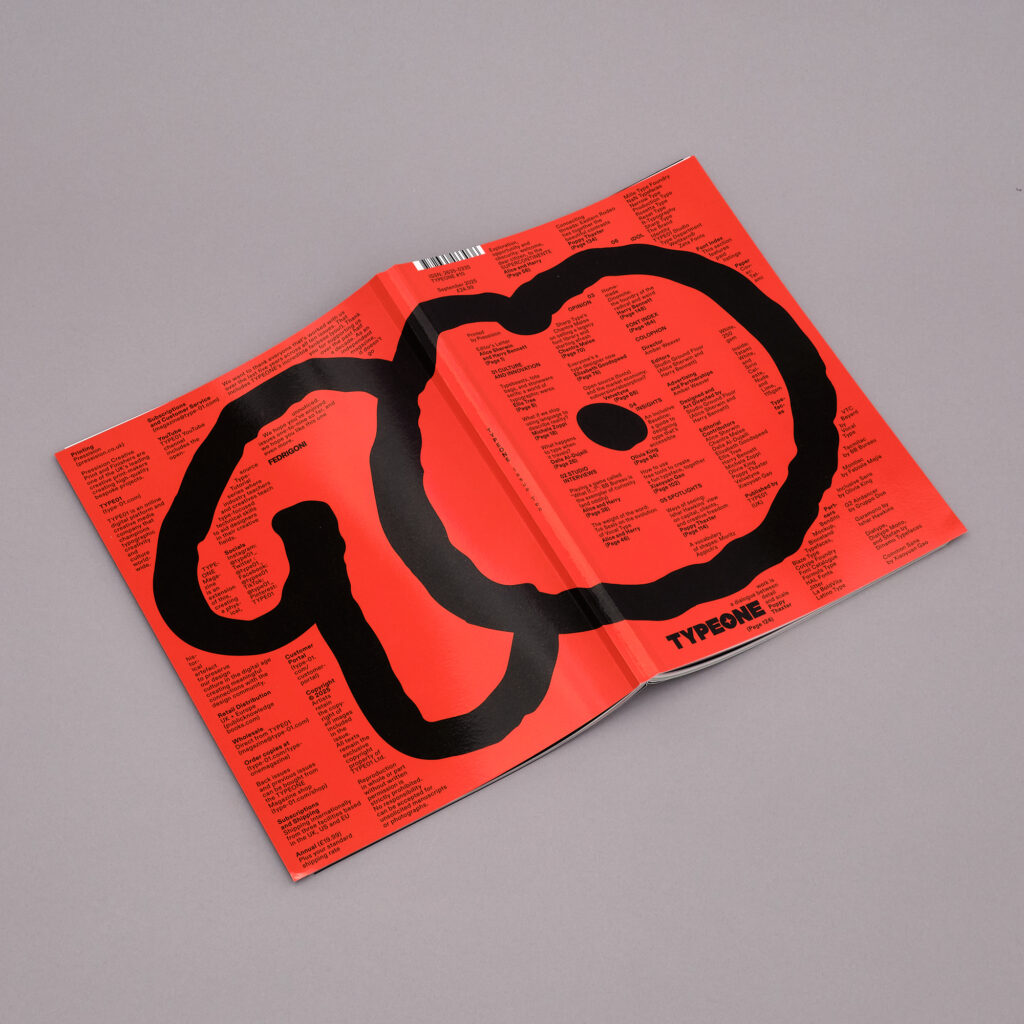
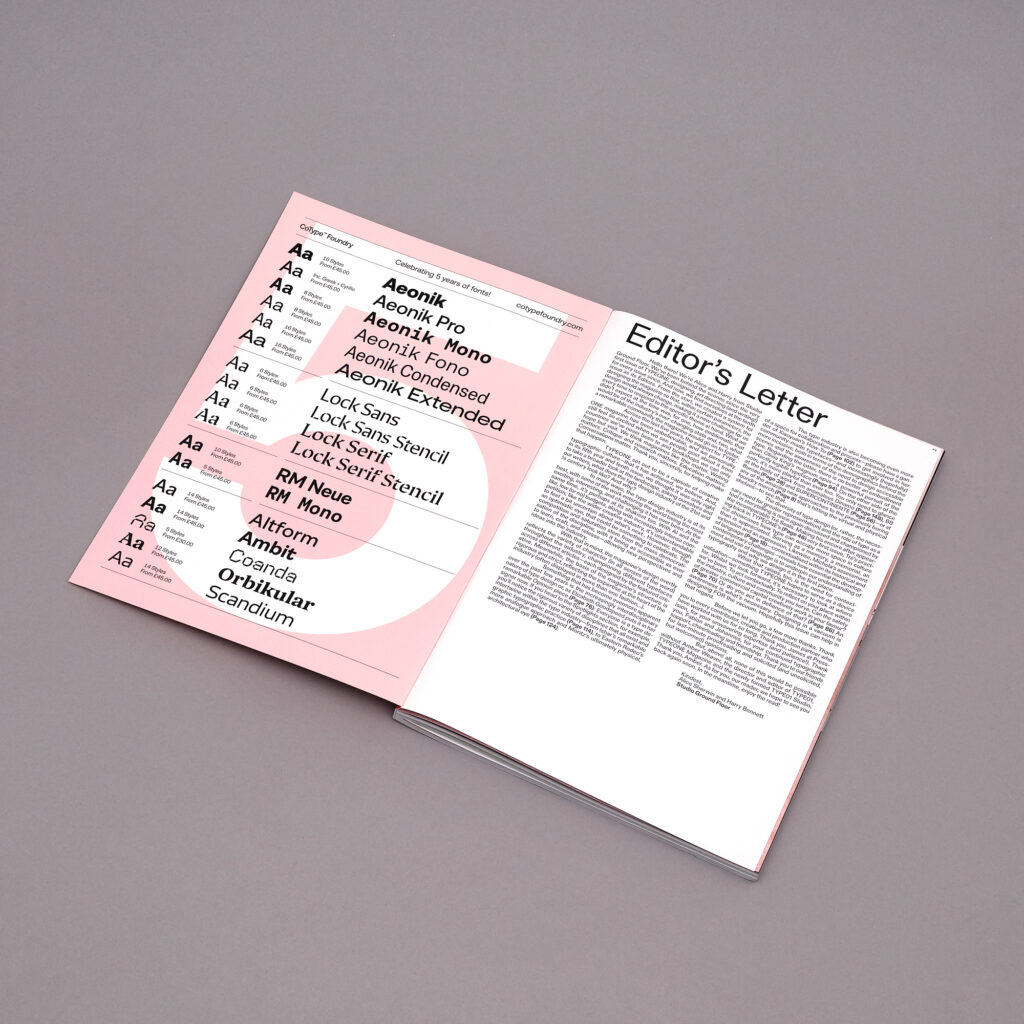
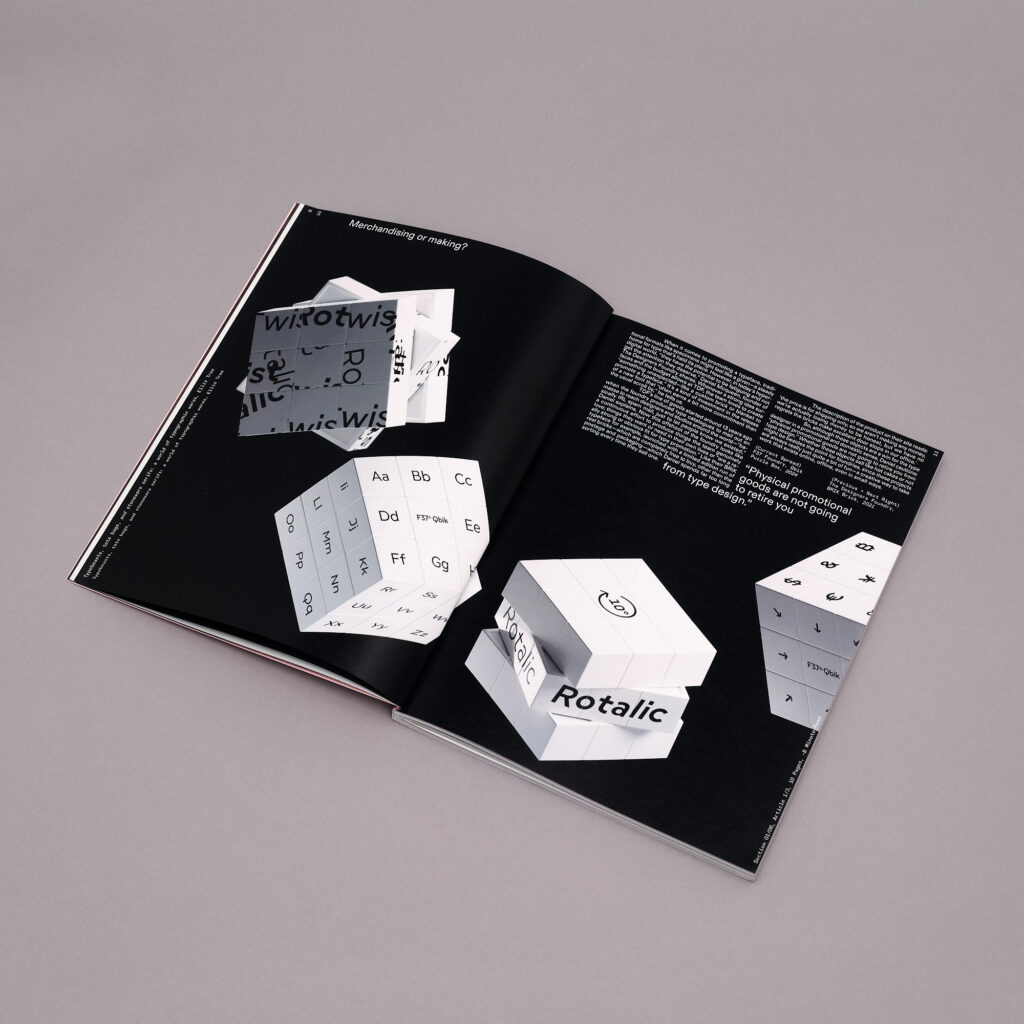
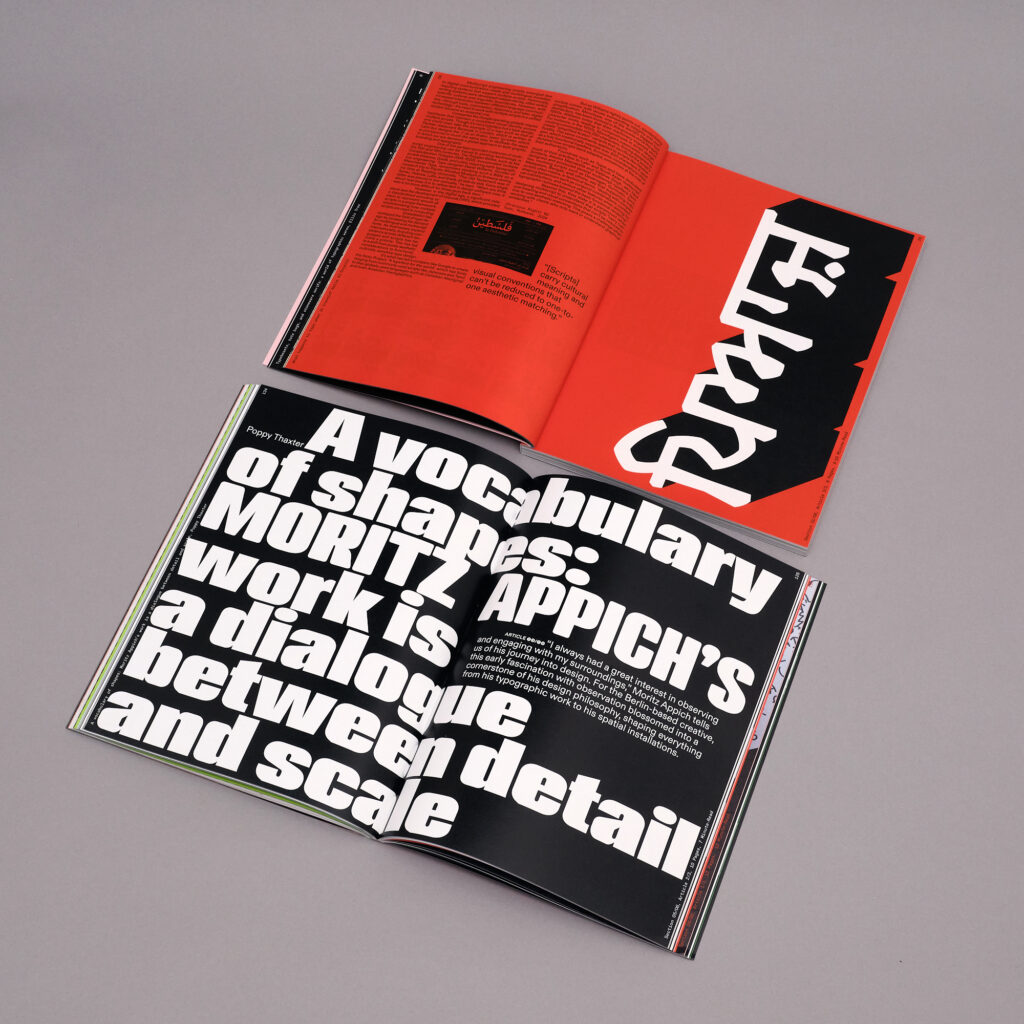
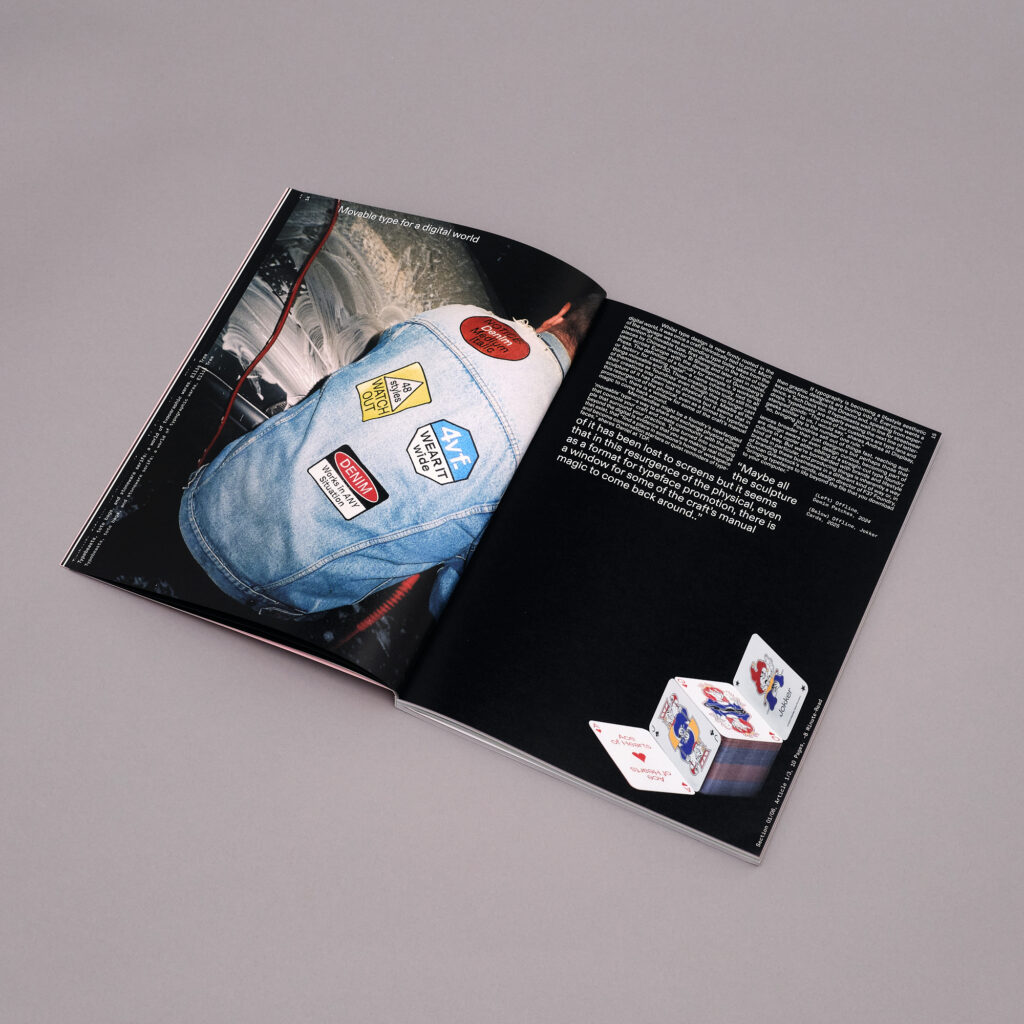
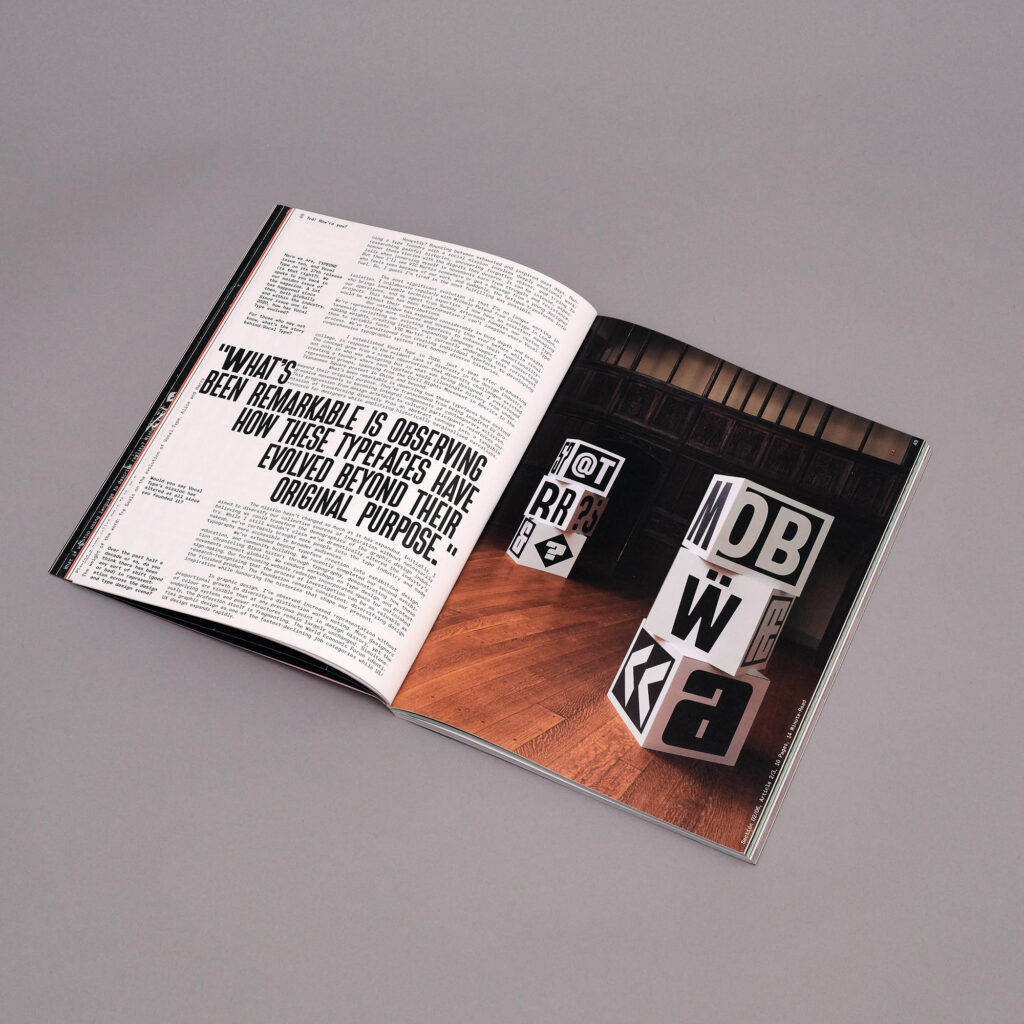
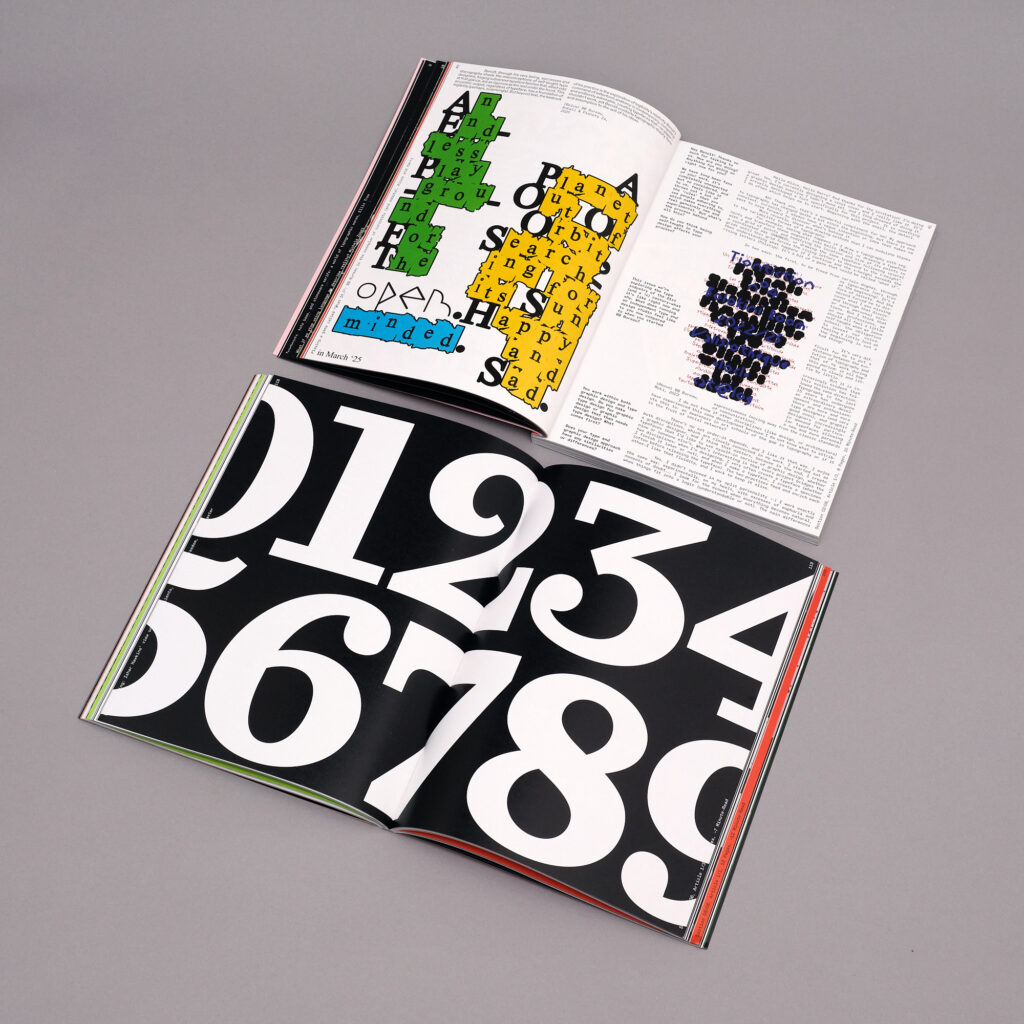
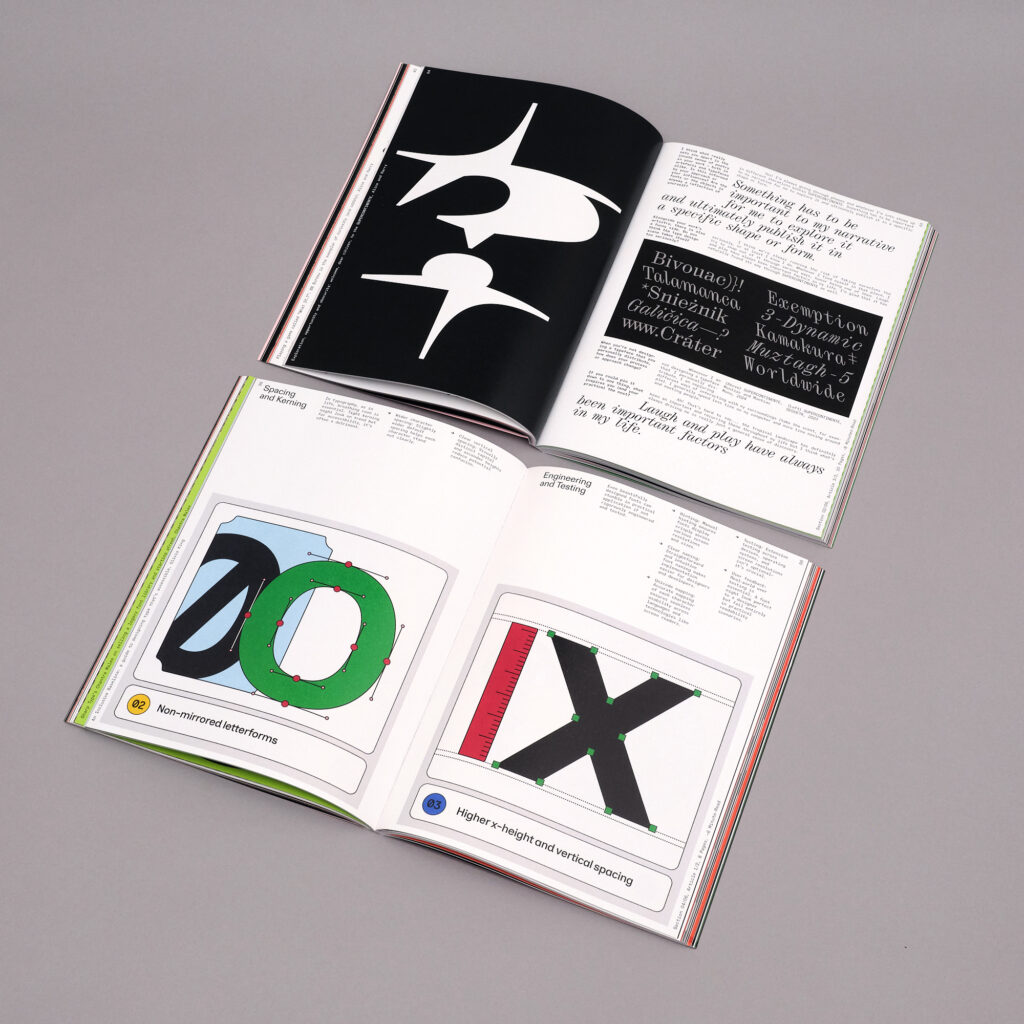
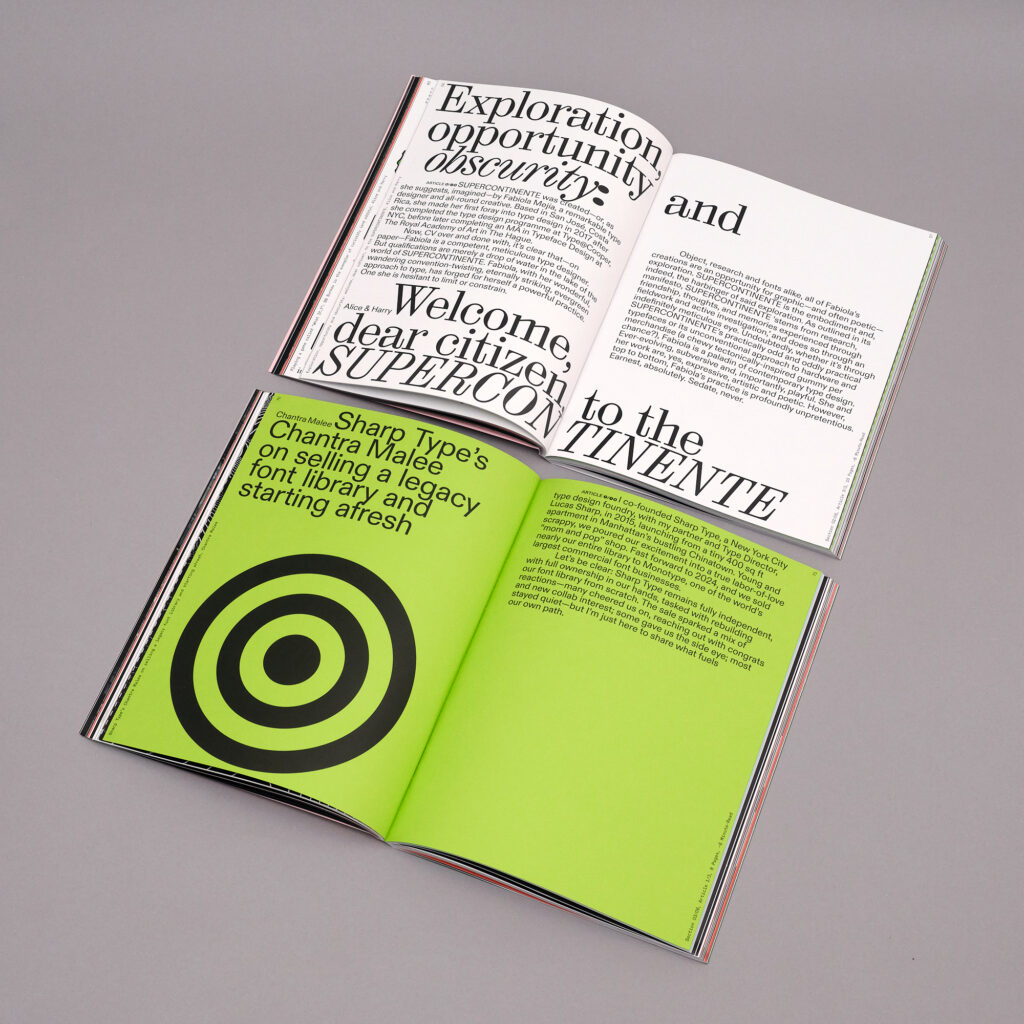
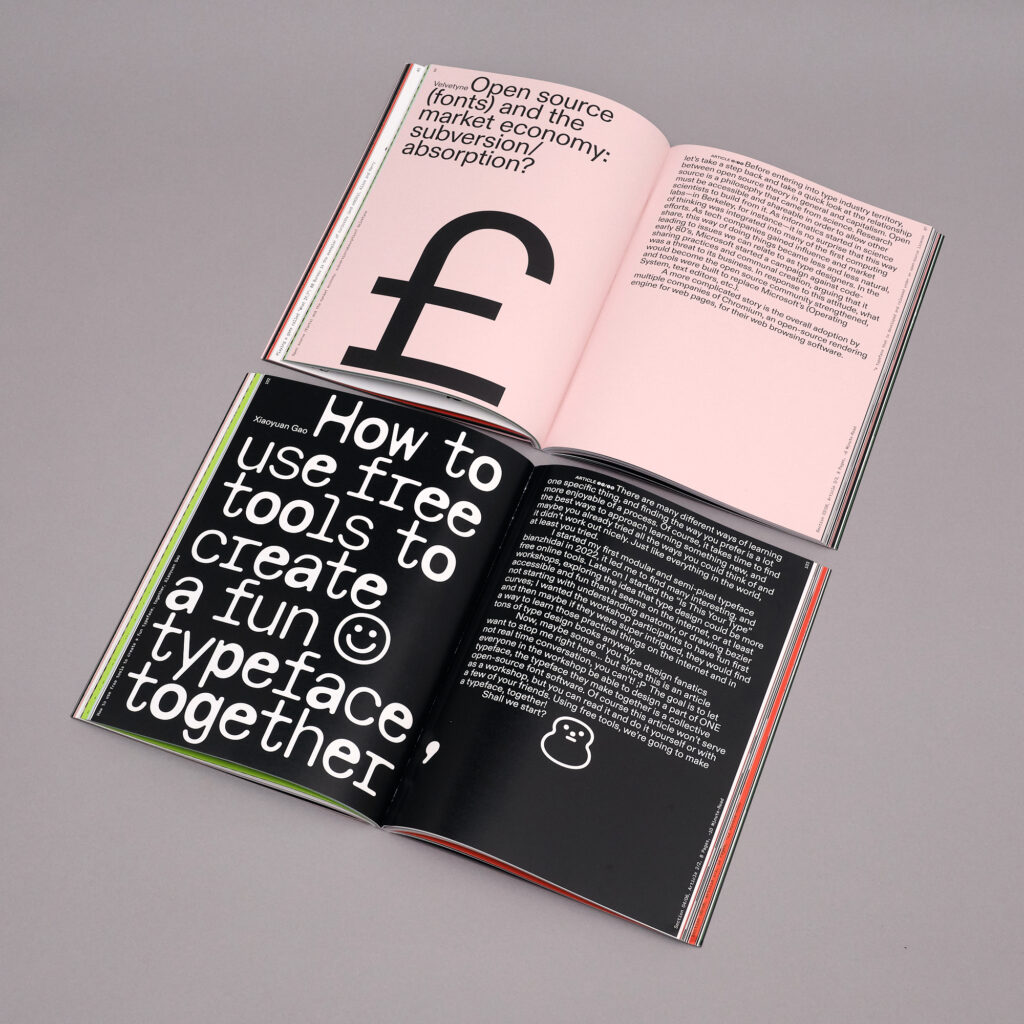
TYPEONE Magazine — Issue 10
TYPEONE Issue 10 — 08.09.2025
Issue 10, 5 years in print, and one of many font issues to come.
Welcome to TYPEONE Magazine issue 10! Now stacked with 182 pages (30%+ increase), this issue is guest-edited and designed by Studio Groundfloor, the studio that has been shaping the look and feel of #typeonemag since day one. For this celebratory issue, they’ve stepped in as editors to ask not just what type looks like, but what it means in 2025.
Across each section of culture and innovation, studio interviews, opinion, insights, spotlights and idol pieces, contributors reflect on type’s capacity to resist, to preserve, to memorialise, to include — and to disrupt. And in keeping with TYPEONE’s contemporary typographic spirit, with the incredible support of Dinamo’s Diatype font family, each feature is designed using a typeface designed by the creative or entity behind the article, giving the issue a visual diversity that mirrors the culture it represents. All underpinned by a tight structural grid build by SGF with rigour and intention, paying homage to the precision and intentionality that type design demands.
At a key milestone of reflection, issue 10 explores type’s place in our culture today.
Cover Design
Issue 10 cover’s, which also doubles as the colophon (a ‘coverphon’?), sets this typeface (aka, Stephan Marx’s handwriting) as a mighty number ‘10’, set against a deep red Pantone.